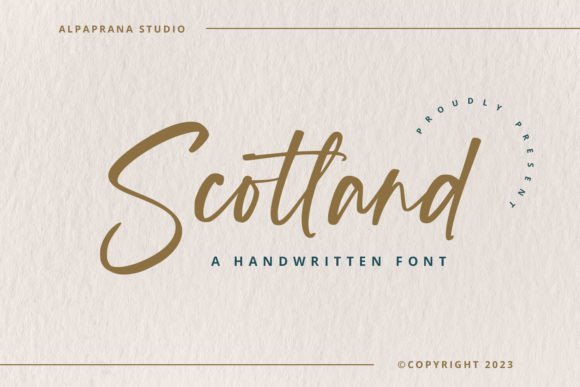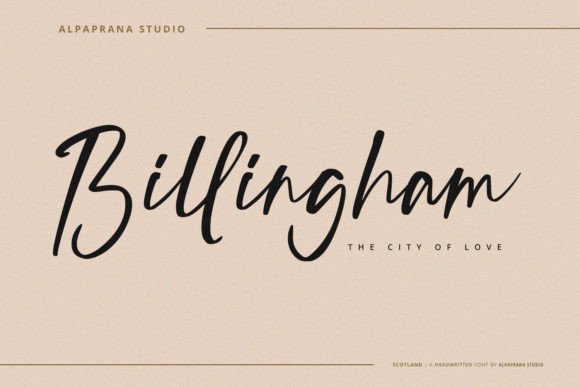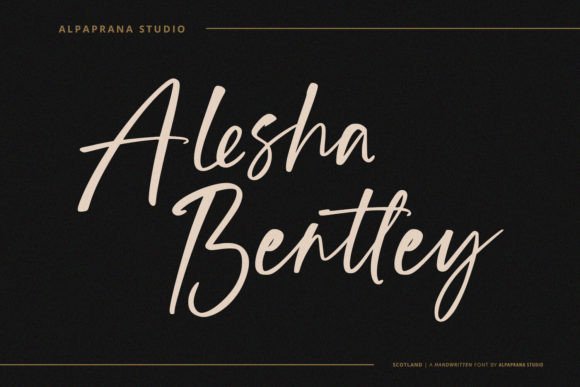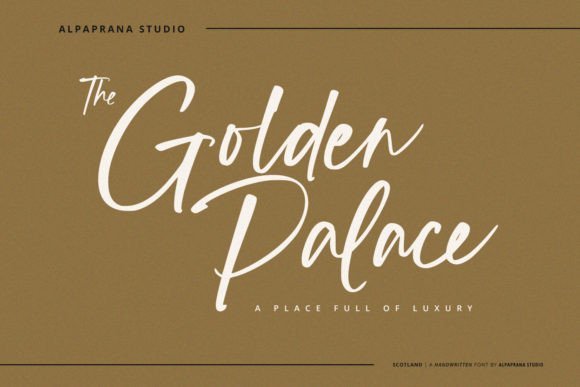
Calligraphy Fonts / FontsScotland Font Download 17/04/2025 - by Awais Farooq Scotland Font is an elegant script font with a contemporary atmosphere and impeccable form, inspired by timeless classic calligraphy. Not too thin and not too thick, balanced and varied, this font was designed to enhance the beauty of your projects. Related Posts:Suckira – Modern Elegant Serif FontRosaline Marige FontBodega Script Elegant Wedding Font Free DownloadAmsio Elegant Serif Font The Calligraphy FontMolgin Elegant Serif FontEcatherina - legendary script Download Free Everleigh Font DownloadFree Angelicha Font Download Trending Elisabeth FontDaily Ramide Serif FontDownload Calote FontDownload Callume FontQilbrid Font Free DownloadMordo Elegant Modern Serif Font